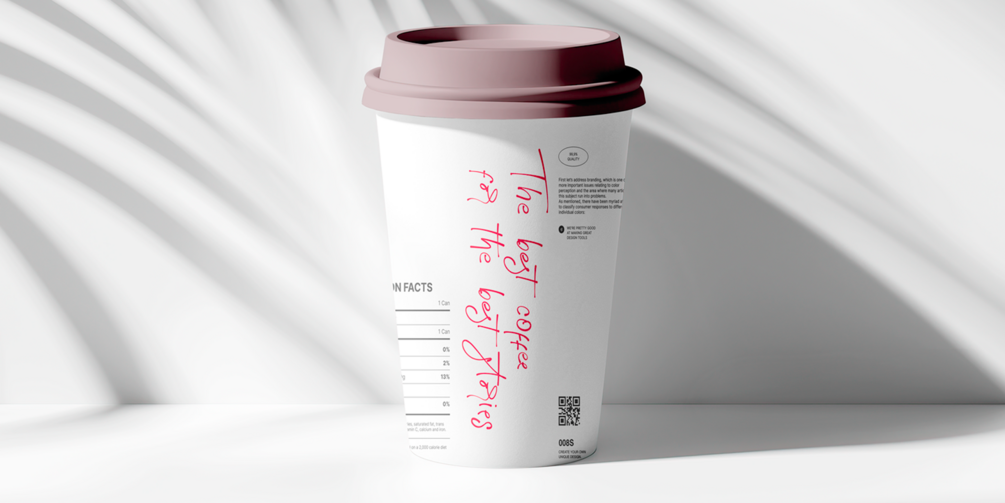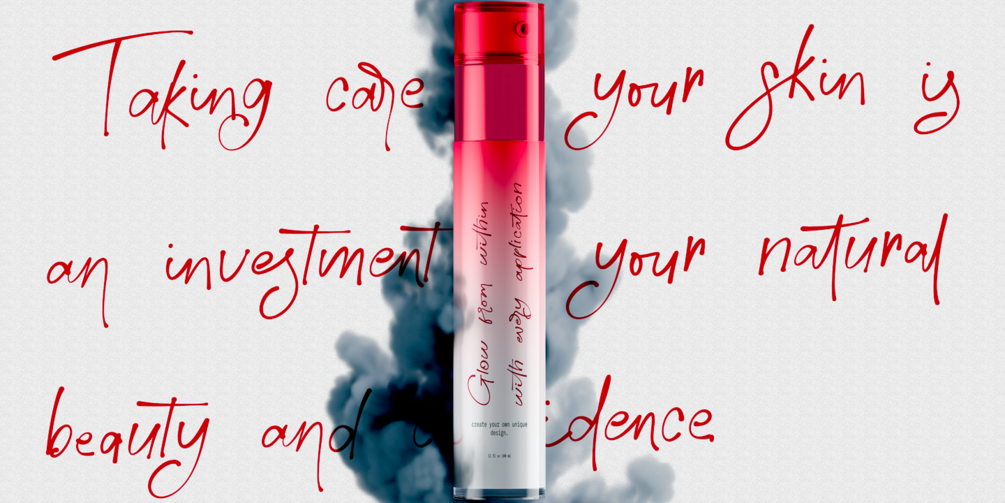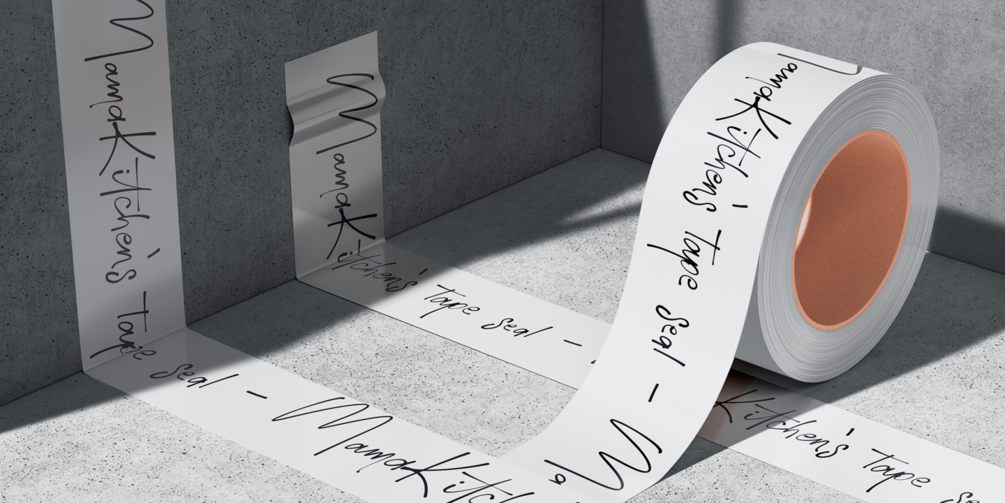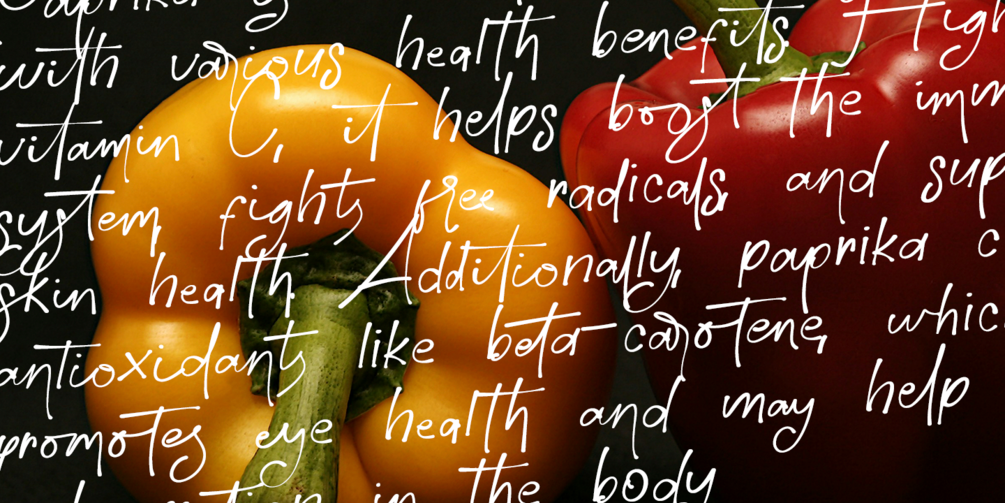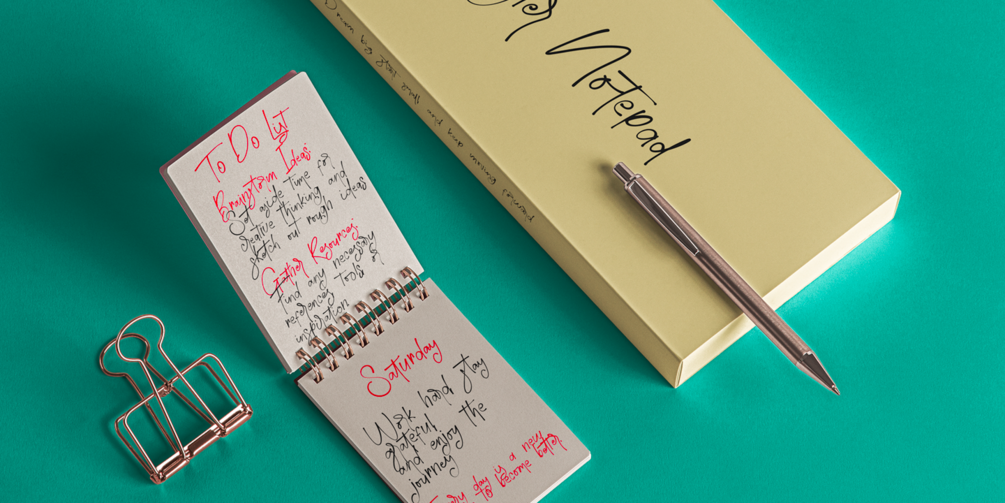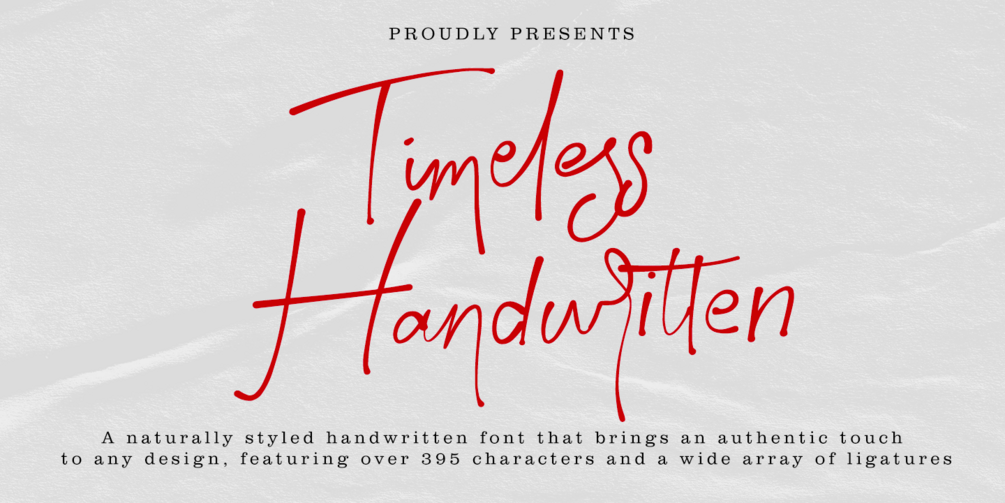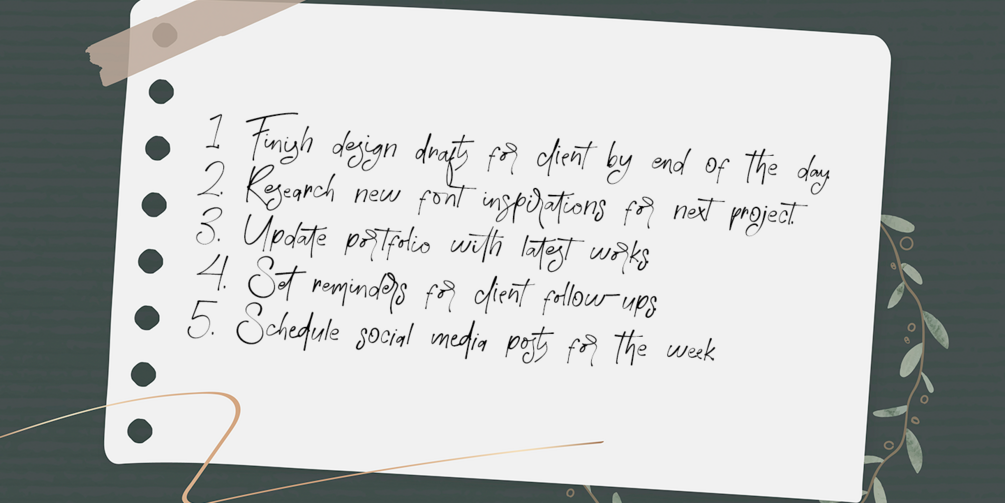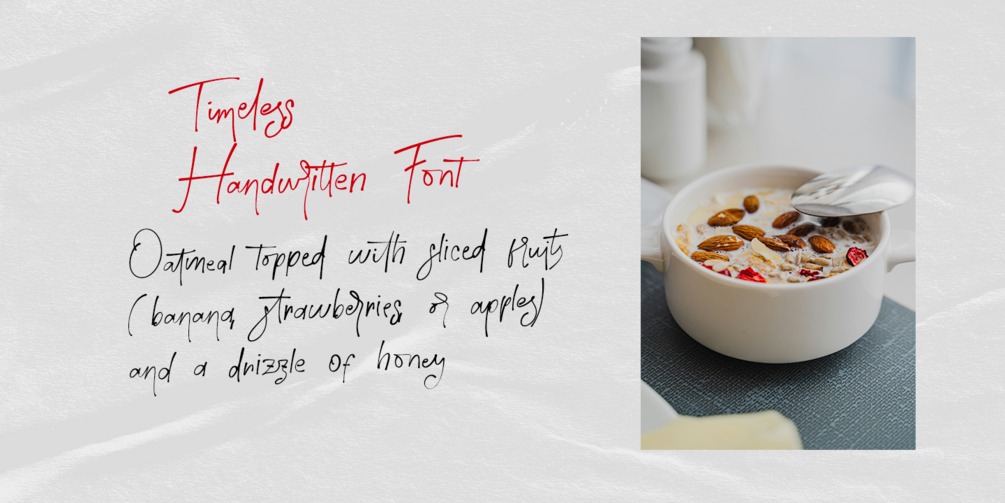
Timeless Handwritten
Introducing Timeless Handwritten – a font that brings the elegance of natural handwriting to life. Effortlessly chic and incredibly versatile, this typeface captures the subtle imperfections and smooth flow of authentic hand-drawn letters, making it ideal for a wide range of creative projects.
Timeless Handwritten is packed with an array of Opentype ligatures, so every stroke looks unique and realistic. Turn on the ligatures to activate a beautiful, flowing script that feels hand-crafted, or pick and choose pairs for a more customized look.
Pair it with a bold serif or sans-serif to create stunning contrasts, or let it shine on its own in notes, labels, invitations, greeting cards, wedding designs, organic branding, quotes, and so much more.